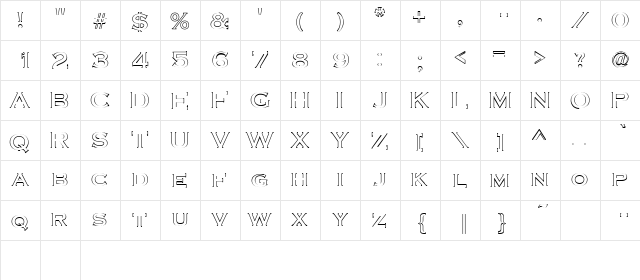
CASSIDY Regular
Design Context for CASSIDY Typeface
CASSIDY takes a measured approach to typography — its balanced proportions and neutral character make it a reliable workhorse for both digital and print work.